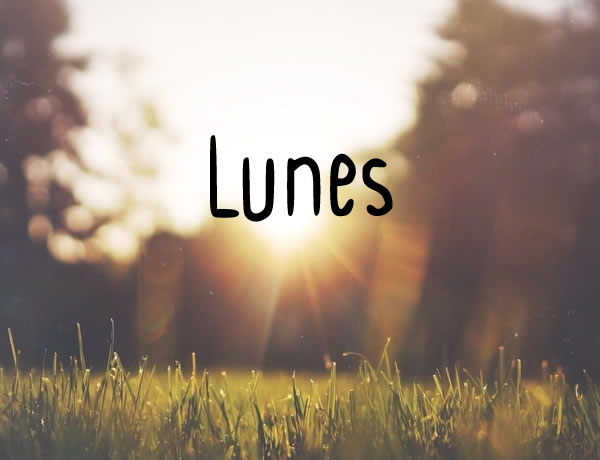
Prepare to be mesmerized by Lunes Font, the captivating creation of renowned font designer Carolina Valtuille. This exquisite script typeface embodies the essence of elegance and grace, inviting you to unleash your creativity with its enchanting charm. Every stroke of Lunes Font dances across your screen with a touch of artistry, leaving a trail of whimsical wonder that will elevate your designs to new heights.
Lunes Font offers a diverse range of expressive characters, each meticulously crafted to evoke emotions and inspire your storytelling. Its enchanting lowercase letters unfurl like delicate vines, intertwining with playful uppercase characters that dance with a hint of mischief. Embrace the allure of Lunes Font and let your words take flight, captivating your audience with its timeless beauty.
Whether you're crafting enchanting invitations, designing captivating logos, or weaving tales in your writing, Lunes Font will become an indispensable tool in your creative arsenal. Its versatility knows no bounds, seamlessly adapting to a myriad of design styles. Imagine the magic you can create with Lunes Font, transforming your projects into captivating works of art.
Carolina Valtuille, the visionary behind Lunes Font, has poured her heart and soul into creating this masterpiece. Her passion for typography shines through in every curve and flourish, ensuring that Lunes Font will leave an unforgettable impression on your designs.